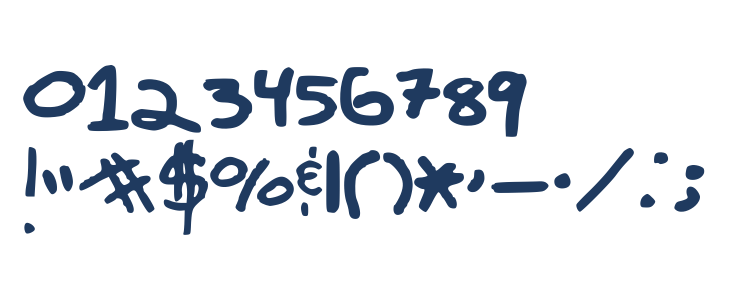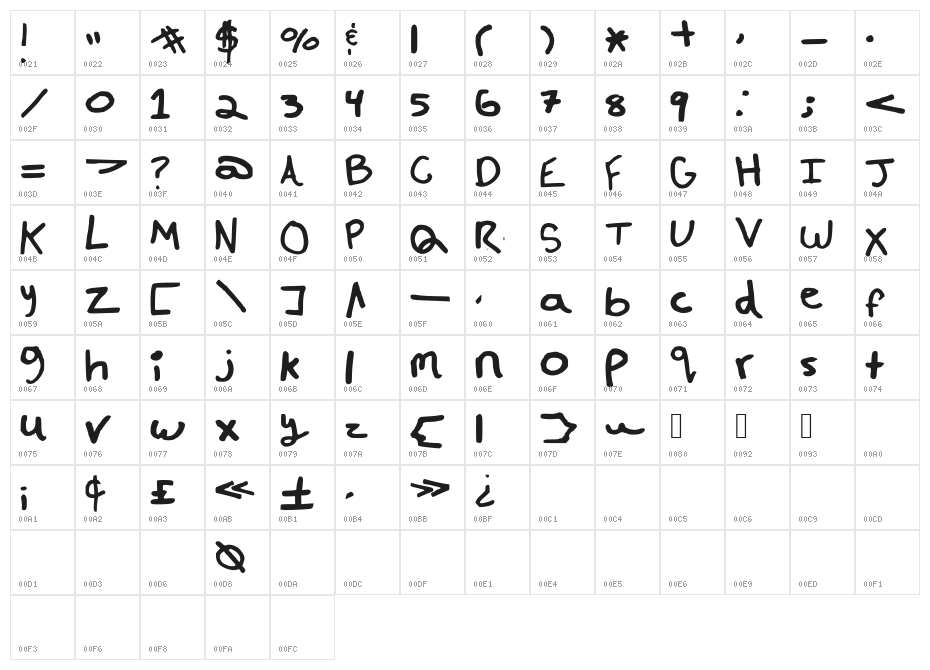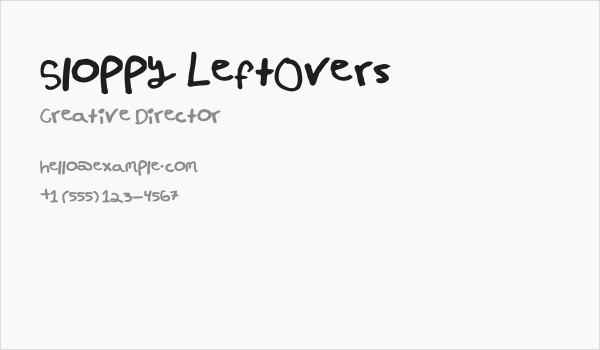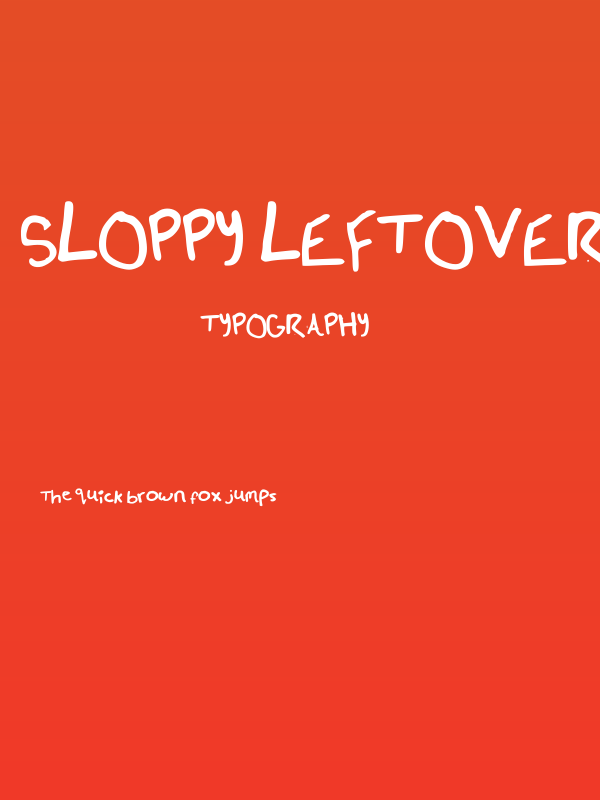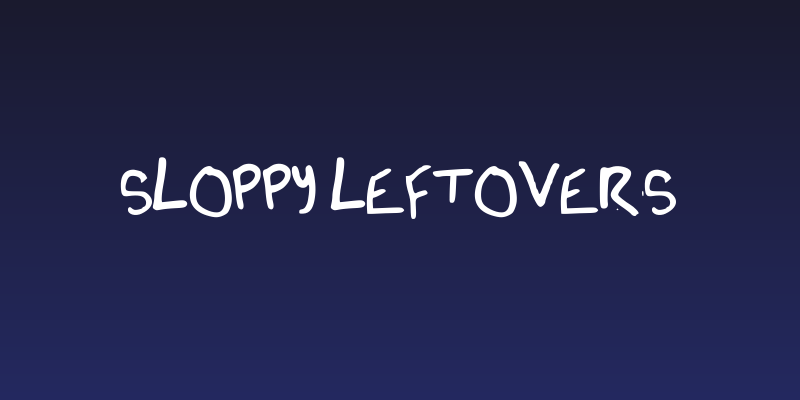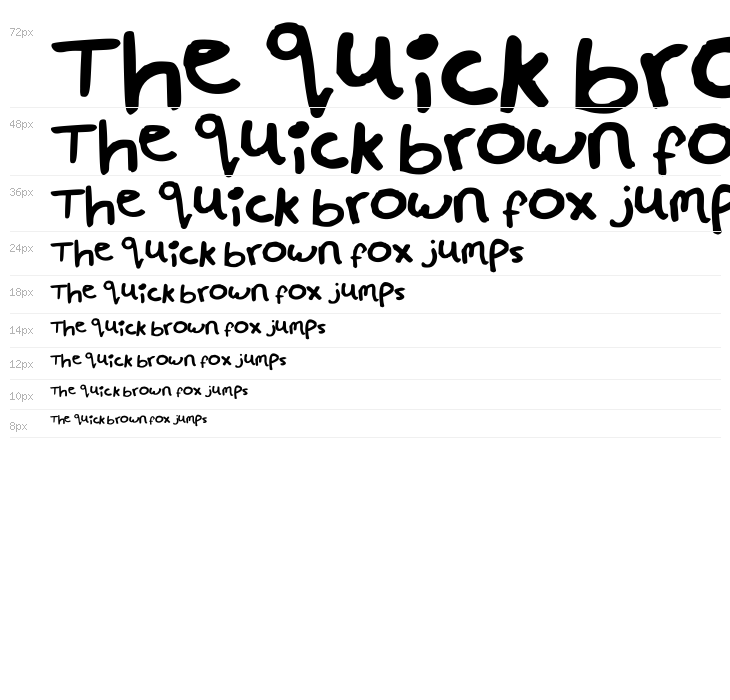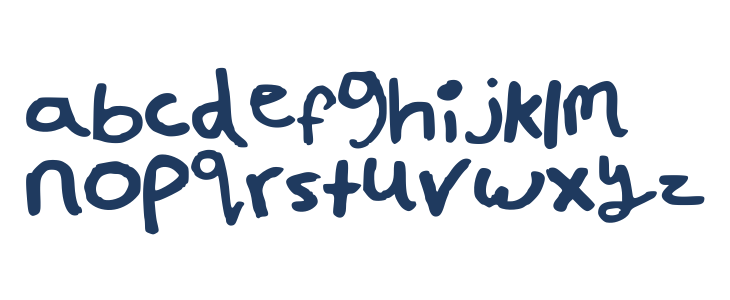
Sloppy LeftOvers Font
Sloppy LeftOvers Description
This font exhibits a playful and informal handwritten style, characterized by its uneven and slightly irregular strokes. The letters have a casual, freeform appearance, with varying thickness that adds to its dynamic and spontaneous feel. The uppercase and lowercase letters maintain a consistent style, while the numbers and special characters integrate seamlessly into the overall design. The font's quirky and relaxed nature makes it ideal for projects that aim to convey a sense of fun and creativity.
| Proposed Projects | Ideal for children's books, casual invitations, greeting cards, and creative branding projects. |